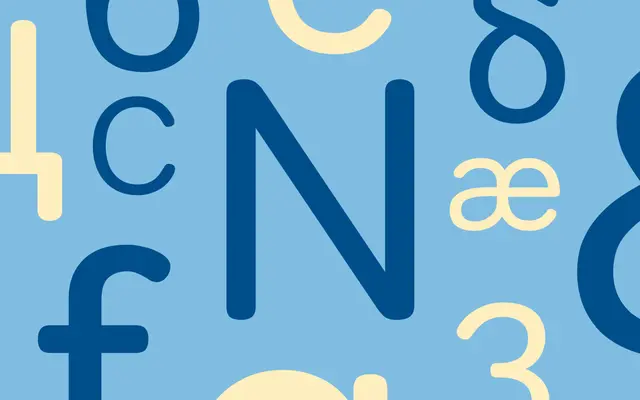
Tondo
Dalton Maag · Veronika Burian · 2021
A rounded sans by Veronika Burian with a dedicated Signage cut, used widely in wayfinding, branding and advertising.
A rounded sans by Veronika Burian whose soft terminals give it an immediate, friendly presence on screen and at display sizes. Four weights cover Light, Regular, Bold and a dedicated Signage cut tuned for wayfinding contexts. The family sits comfortably in advertising, branding, packaging and consumer products that want approachable warmth without sliding into a child-like rounded geometric.
Dalton Maag describe Tondo as a sans typeface with rounded terminals that always makes an impact on screen or at display sizes, with a friendly personality suited to wayfinding, branding and advertising.